Graduation season is the perfect time to design something bold, proud, and memorable. Whether you’re creating senior T-shirts, diploma frames, graduation banners, or social media shoutouts – the right font brings energy and formality to your layout.
From elegant serif fonts for diplomas to modern varsity displays for yearbook pages, we’ve curated the best graduation font styles below.
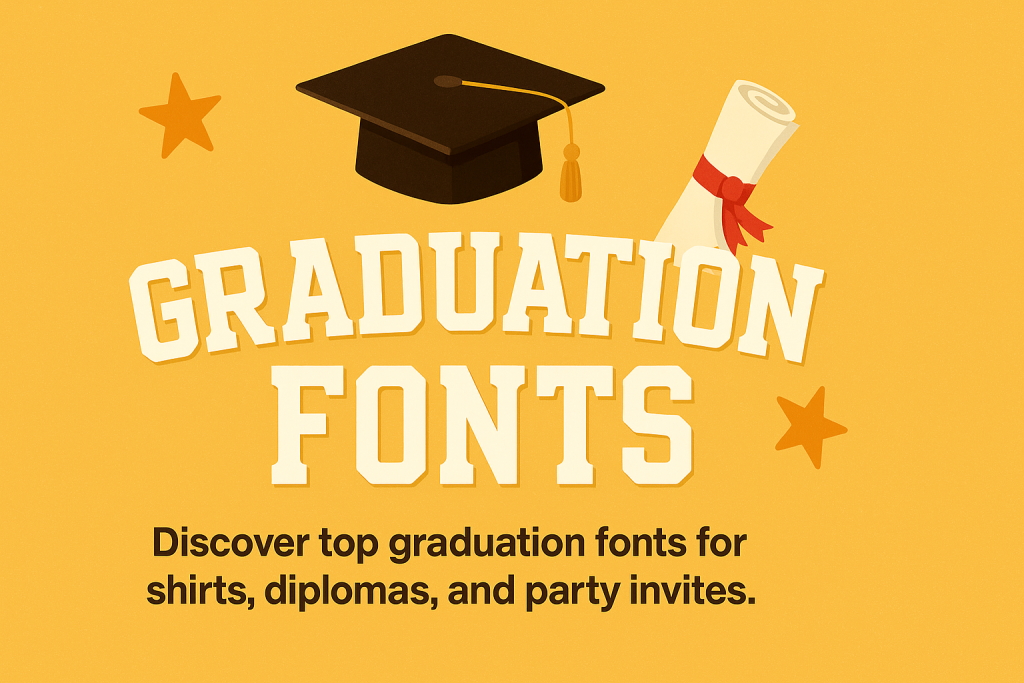
Top Graduation Font Styles (And Why They Work)
Engraved Serif & Formal Type
Great for diploma designs, certificates, and formal invites. These fonts have authority, tradition, and timeless appeal.
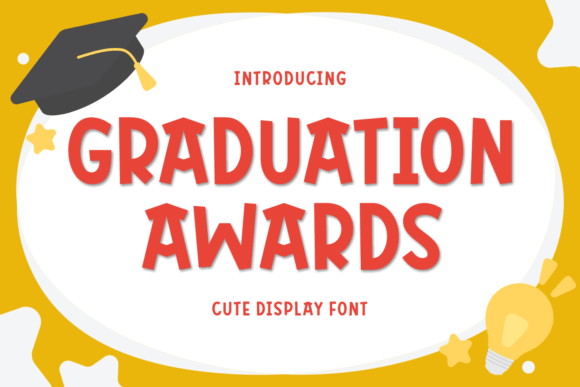
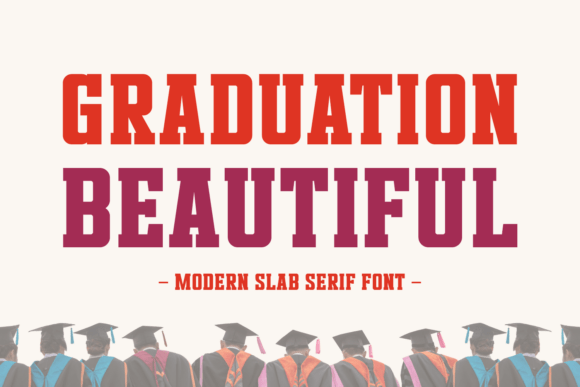
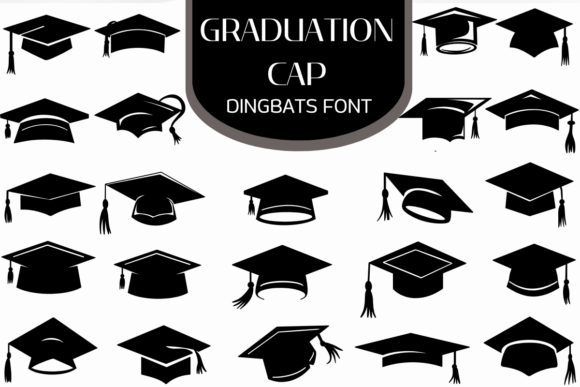
Bold Display & Varsity Fonts
Make a loud statement on yearbooks, banners, and tees. Think collegiate flair and thick outlines.
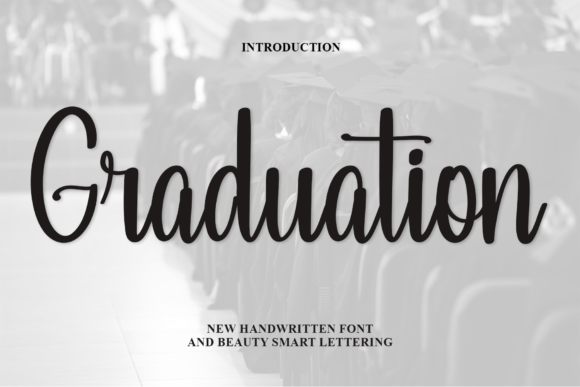
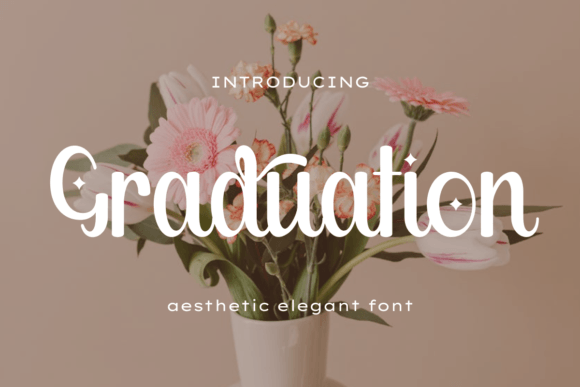
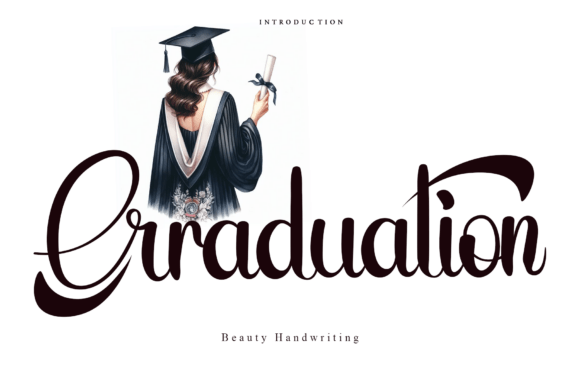
Script Fonts for Messages & Quotes
For warm, handwritten touches – perfect for “Congrats Grad” messages or thank-you cards.
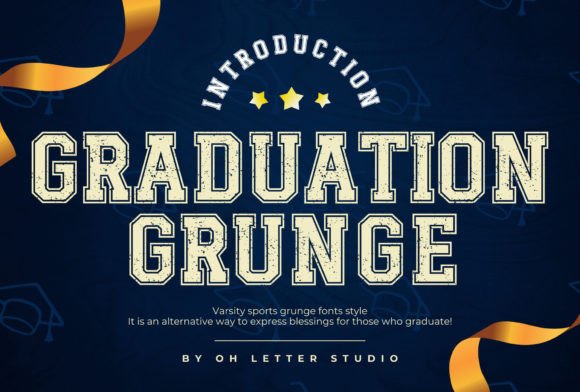
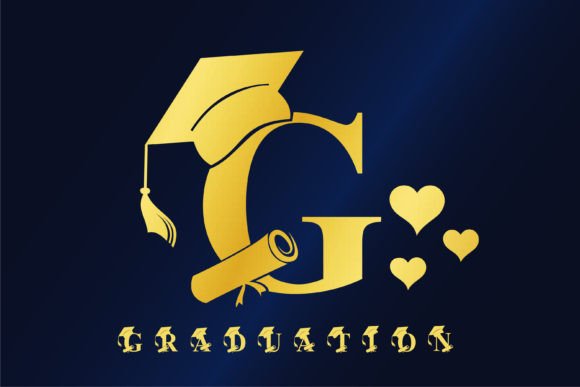
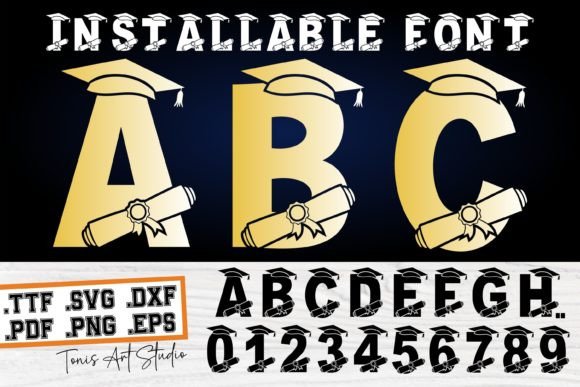
Modern Sans for Social & Printables
Clean lines, rounded edges – great for editable templates, digital announcements, and school branding.
Font Pairing Recipes (Copy & Paste)
Use these combos for polished, thematic results:
- Varsity + Neutral Sans – Bold header + clean body text
- Cursive Script + Classic Serif – Elegant names + formal base
- Block Display + Tabular Numbers – Perfect for class year
- Minimal Sans + Quote Script – Modern with a soft accent
Graduation Font Project Ideas
Looking for ways to use these fonts? Try:
- Graduation banners and signs
- Printable diplomas or editable certificates
- T-shirts, mugs, and custom merch
- Party invitations and table menus
- Instagram posts, Reels text overlays
- Cap topper designs
- Senior quote wall prints
- Thank-you cards and scrapbooks
Color & Layout Tips
- Stick to school colors + black/white contrasts
- Use metallics like gold, silver, and bronze for prestige
- Highlight numbers with bold weights or outlines
- Leave space for quotes or names
- Add stars, caps, and laurel icons as text accents
Design Ideas
Use graduation fonts in:
- Senior year tees
- Editable diplomas
- Invitations, frames, stickers, mugs, tumblers
- Instagram reels & digital shoutouts
FAQ Graduation Fonts
Bold sans serif or varsity fonts work best for clarity and impact on banners or apparel.
Absolutely. Just choose fonts with clear structure and convert text to outlines before printing.
Yes! Use script for names or quotes and bold display for class years or headings.